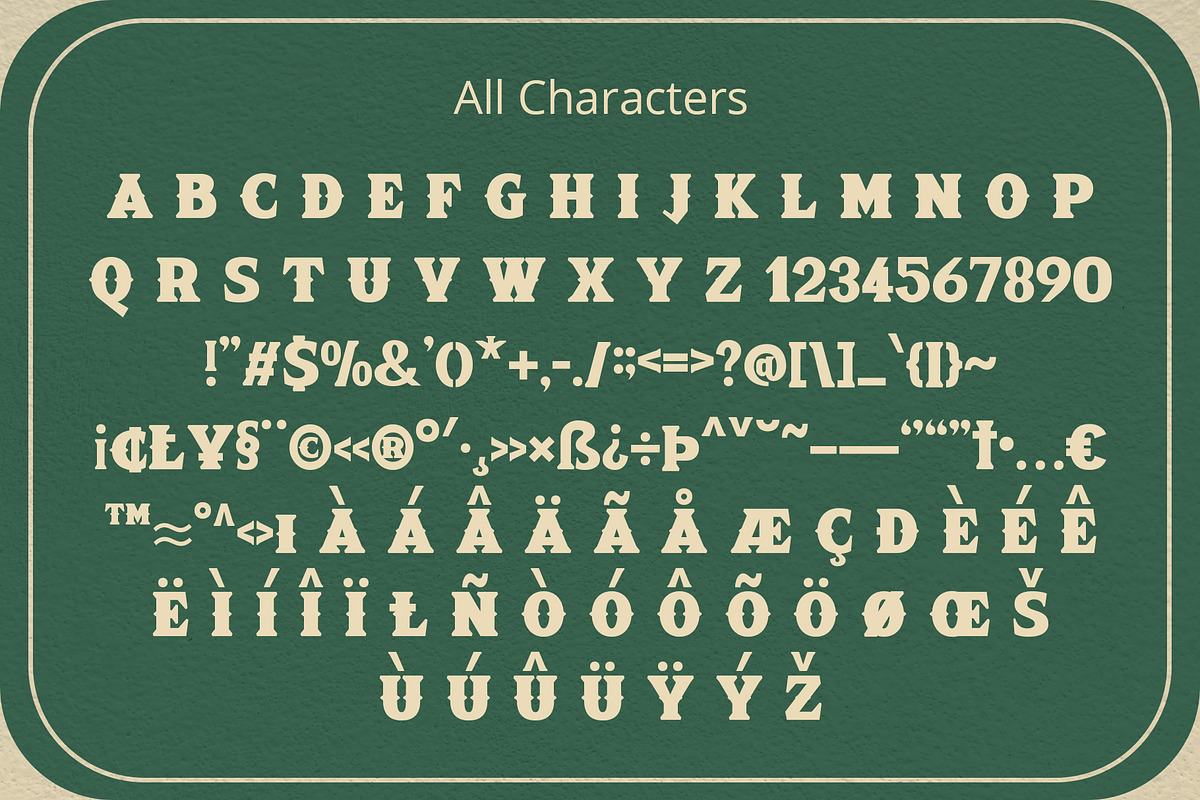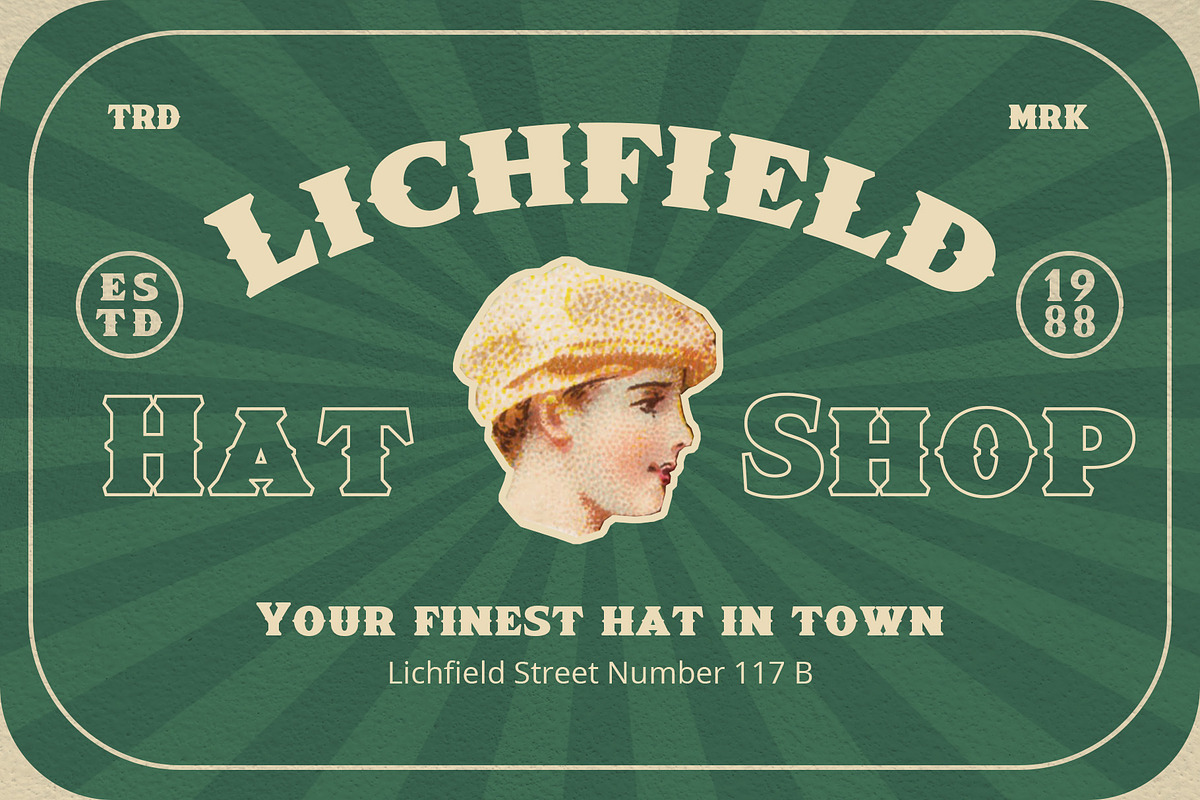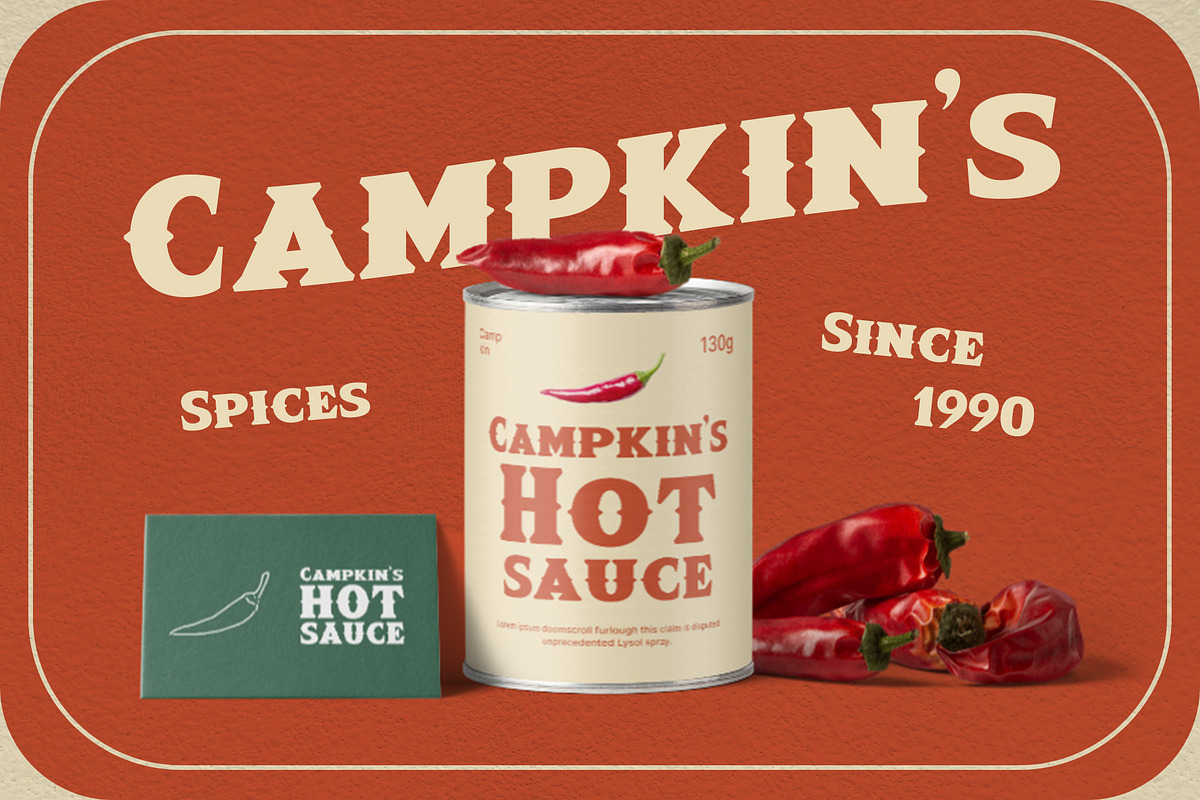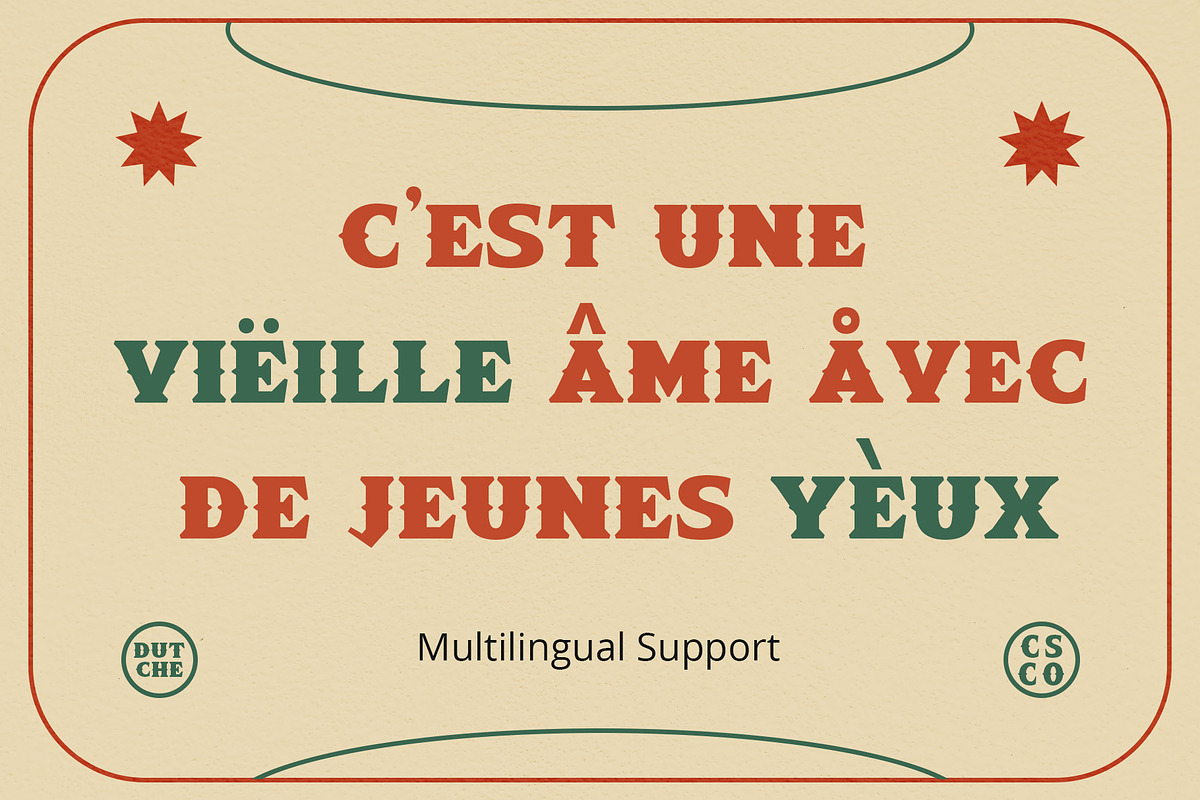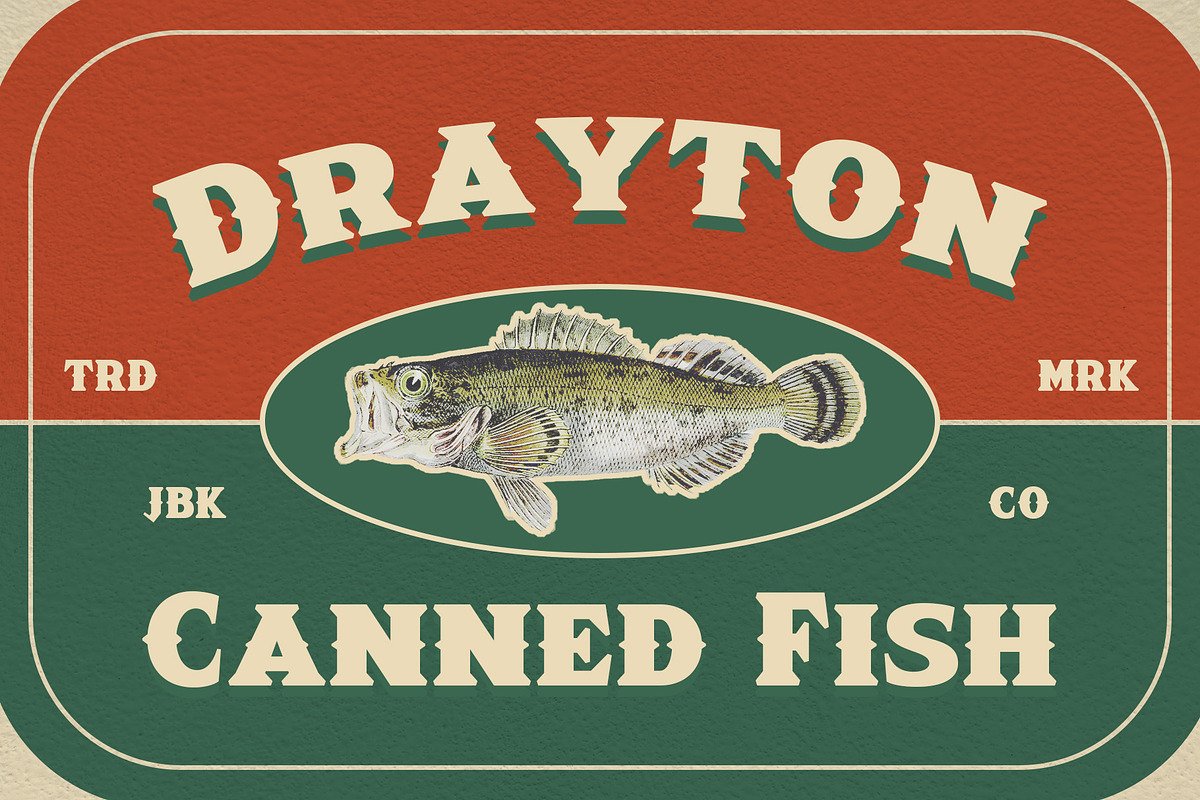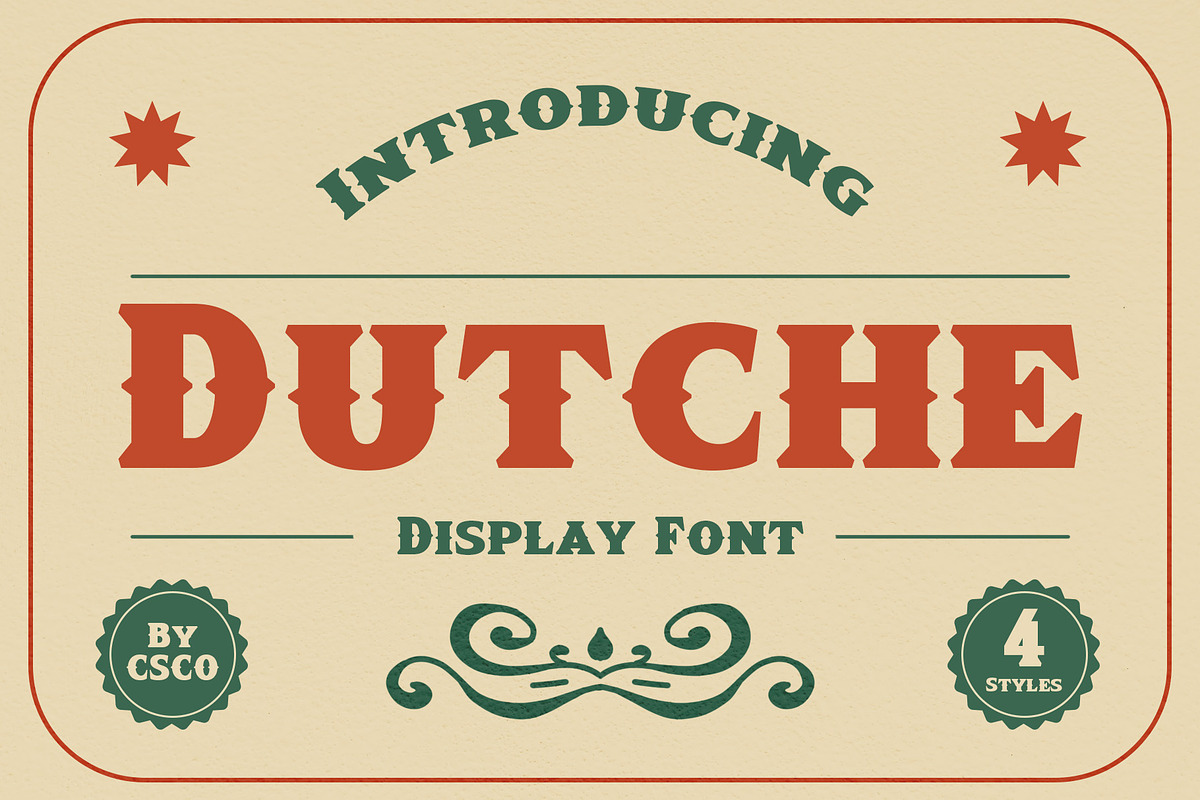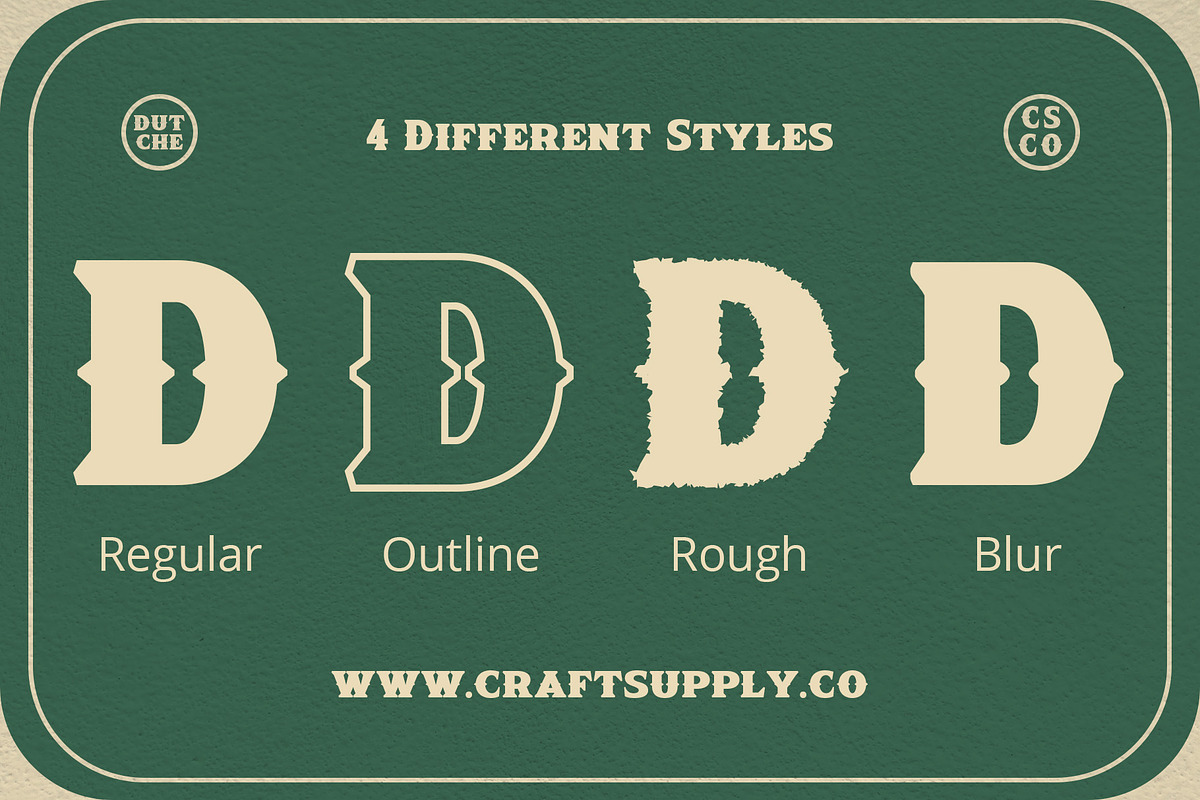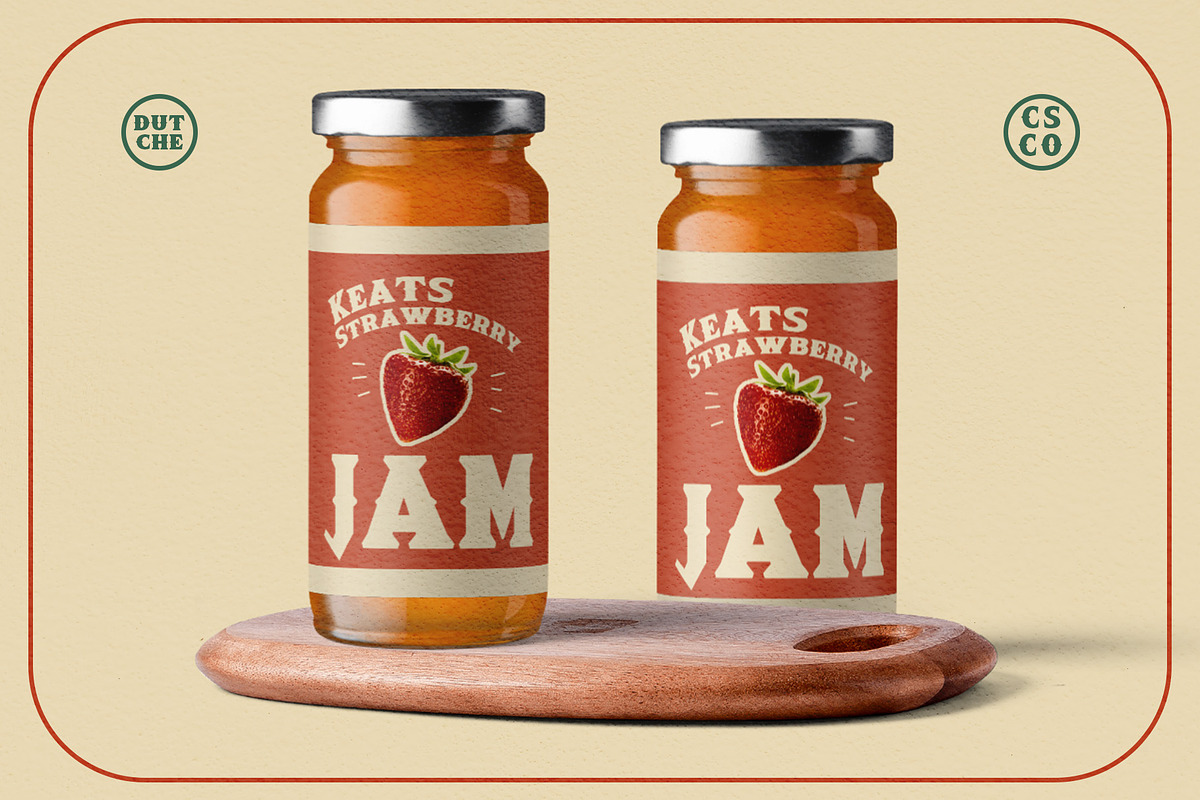
Dutche – Display Serif
Dutche: Boldly Defined Meet Dutche – Display Serif, where boldness takes center stage. This thick, low-contrast serif font stands out. Added serifs on stems enhance its masculine aura. It’s eye-catching, making a statement with every word.
Masculine Appeal Dutche offers a sturdy, masculine look to your text. The extra serifs bring a unique toughness. Its bold nature catches the eye immediately. This font doesn’t just say; it declares. Furthermore, it works great for headlines and logos.
Eye-Catching Readability Despite its heft, Dutche remains highly readable. Its low contrast ensures text is clear and legible. Strong and consistent, it’s perfect for print and screen. Also, it makes a lasting impression in advertising and branding.
- Dutche Regular
- Dutche Outline
- Dutche Rough
- Dutche Blur